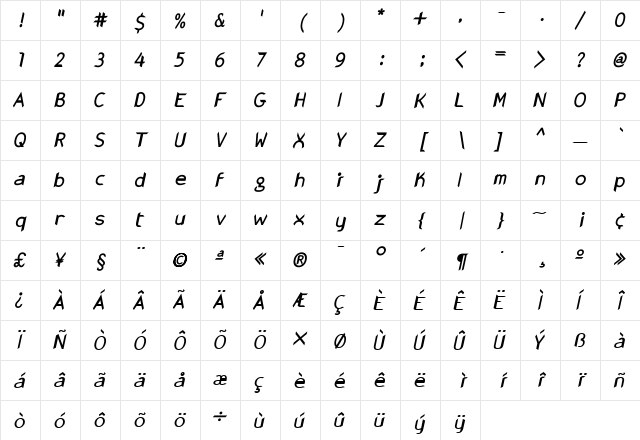
Gonza is a composed and adaptable typeface that performs quietly and consistently across a wide range of design contexts. The slanted form adds forward momentum and visual energy. Its bold stroke weight gives it real presence on the page.
Pro Tip: Use Gonza for emphasis, pull quotes, and subheadings where its slanted energy can add rhythm to the layout.